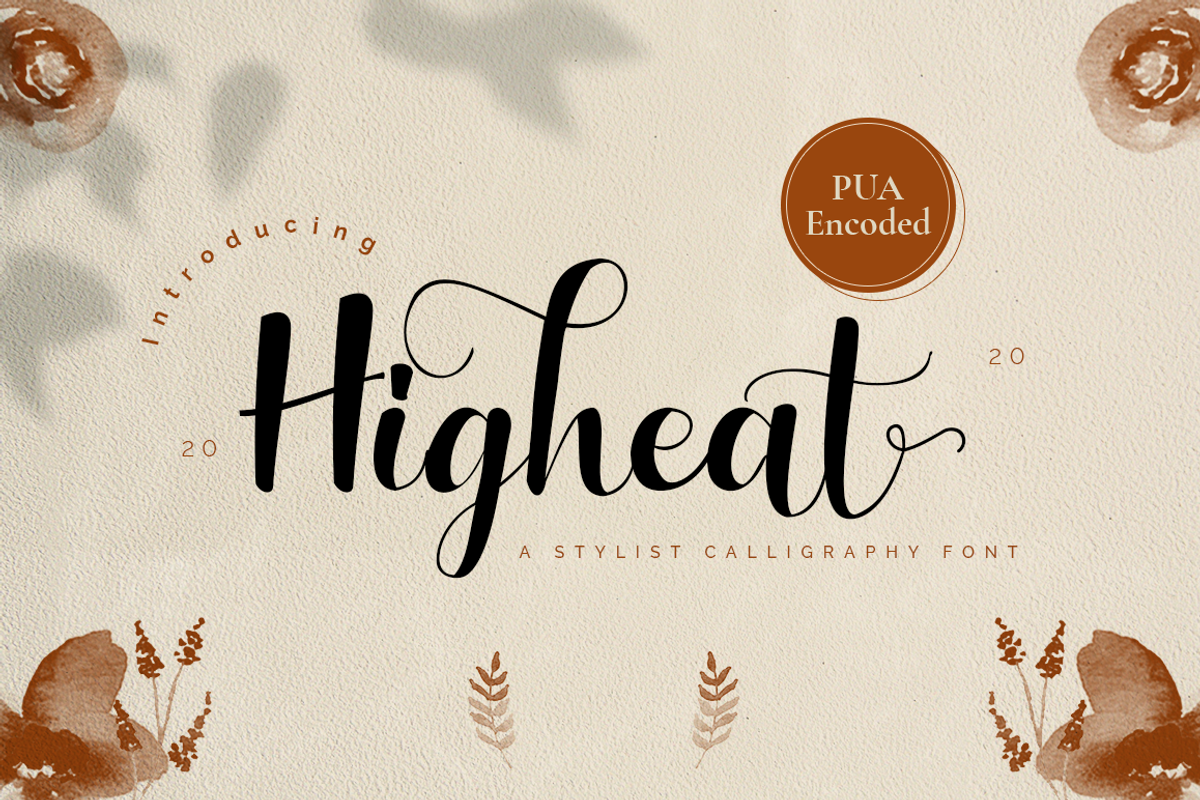
Higheat - Stylish Calligraphy Font Free Download
Please note, to use this font for commercial purposes, you must purchase the full version. Higheat is an elegant and sophisticated calligraphy font that brings a touch of refinement and grace to any design. With its flowing letterforms and smooth curves, it’s perfect for wedding invitations, branding, logos, and high-end stationery. Whether you're designing for a luxury brand or a personal project, Higheat adds a beautiful, handwritten feel to your work. Test it out and enjoy free download access for personal use. Experience the elegance of Higheat - Stylish Calligraphy Font Free Download before purchasing the commercial license. Elevate your designs with the timeless beauty of Higheat.